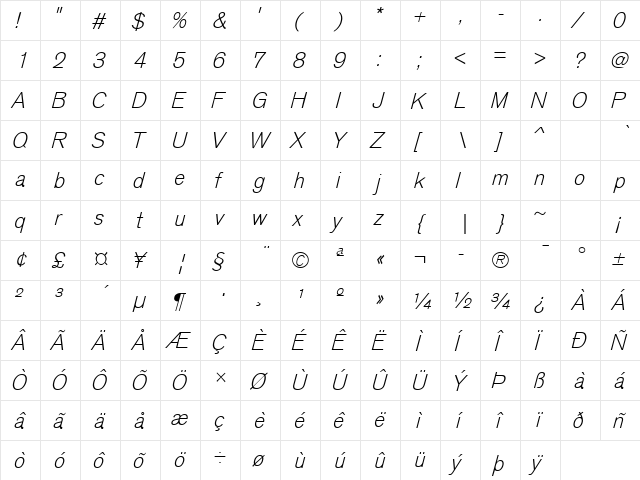
Sage Light Oblique
Design Context for Sage Light Typeface
Sage Light offers clean, dependable letterforms without strong stylistic allegiance, making it a practical choice for designers who need flexibility. The slanted form adds forward momentum and visual energy. Its slender proportions lend an understated elegance to any composition.
Pro Tip: Try Sage Light for annotation and caption copy alongside an upright companion — the contrast in angle creates a dynamic but ordered typographic system.